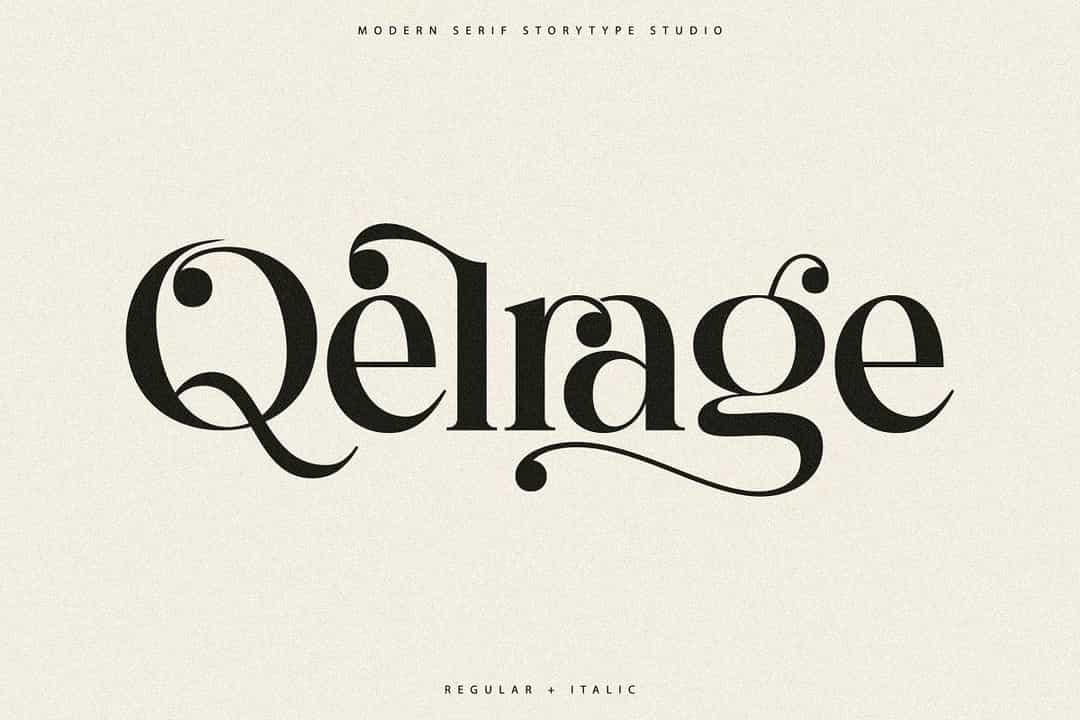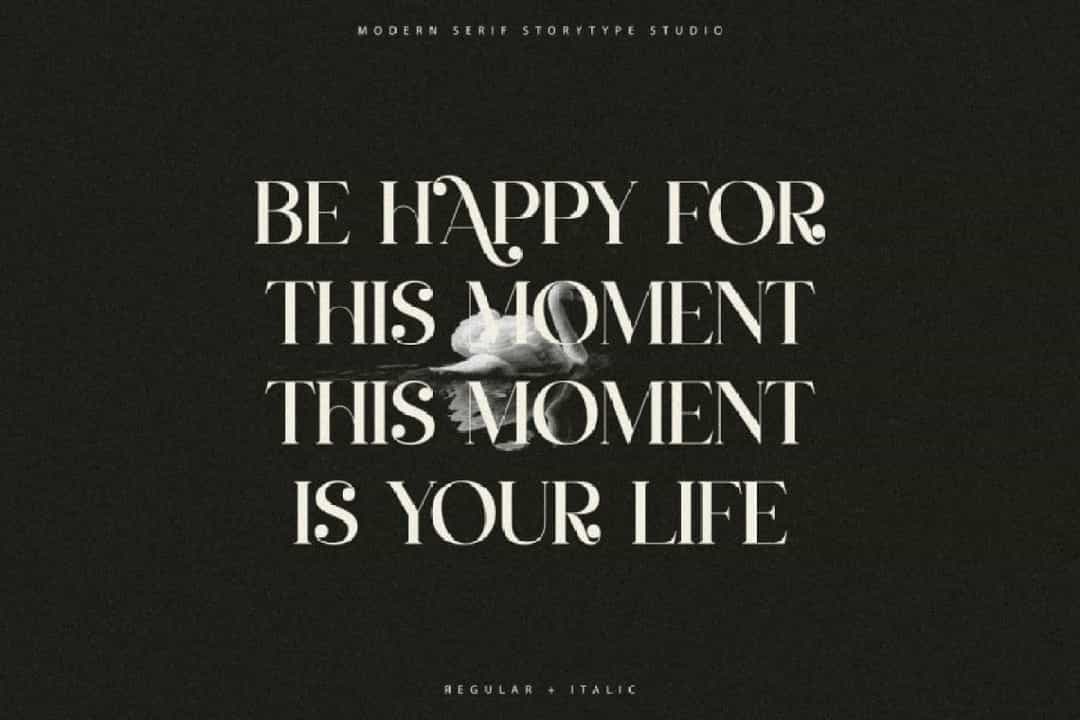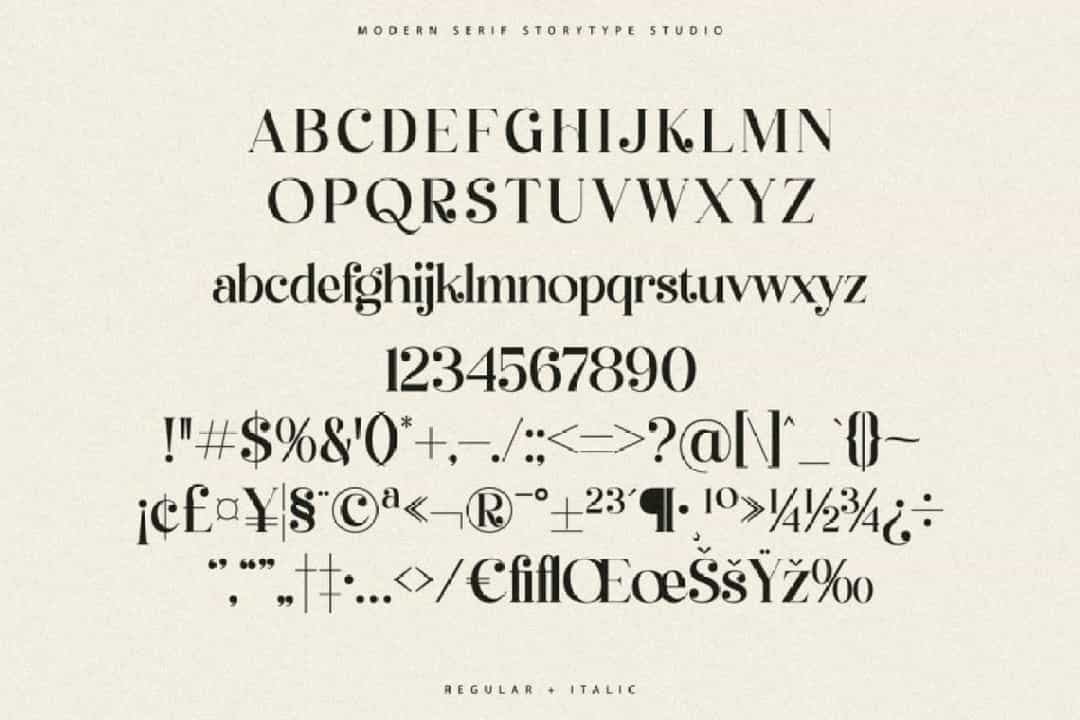
Qelrage is an elegant and modern serif font with its distinct style and contemporary appearance. Perfect for creating classy logos, book or film name designs, fashion brand magazine ads and lettering projects as well as quotes – Qelrage is ideal for use when creating stylish logos for book and film titles, clothing stores or magazine publications – or lettering projects such as quotes etc.